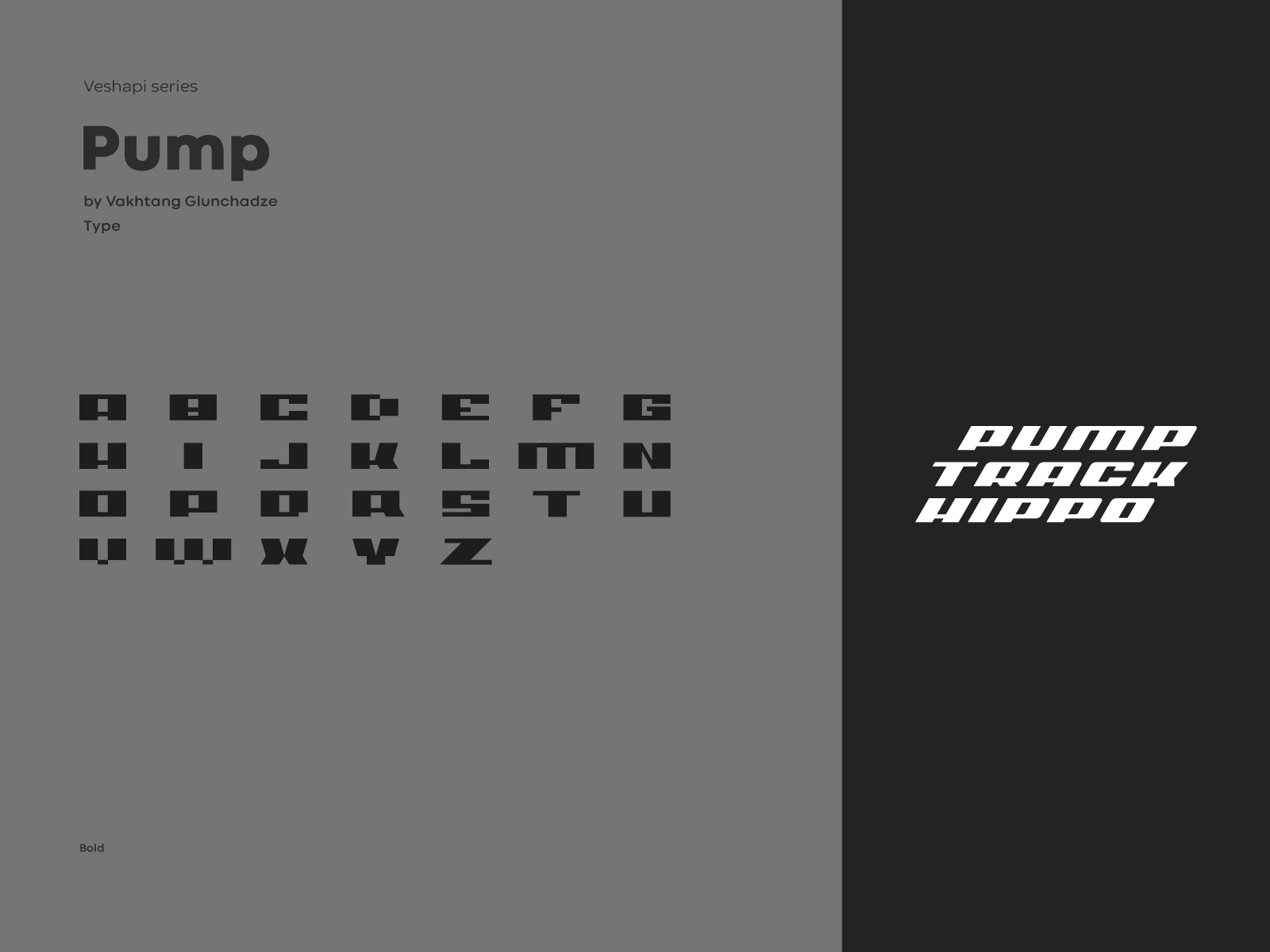
Veshapi Series 'Pump track Hippo' Logo and Font
a logo created exclusively for bicycle competitions and challenges. The font is like a bonus cookie when you achieve in the working process.